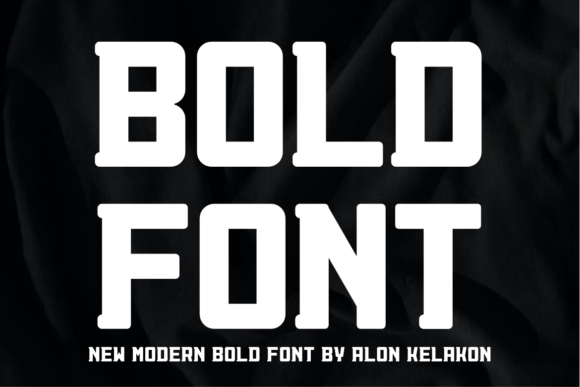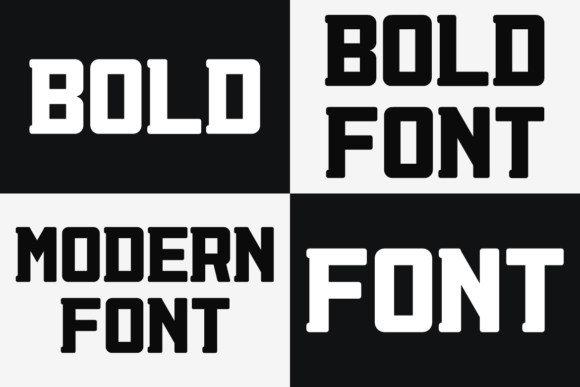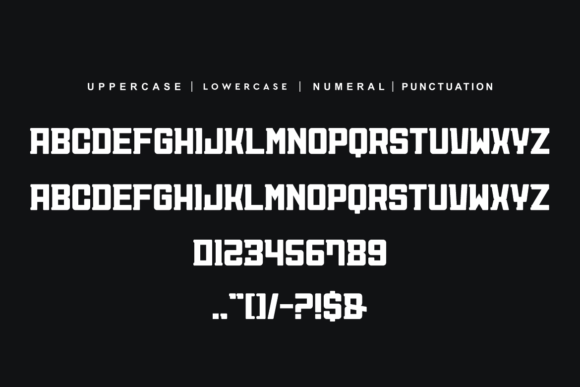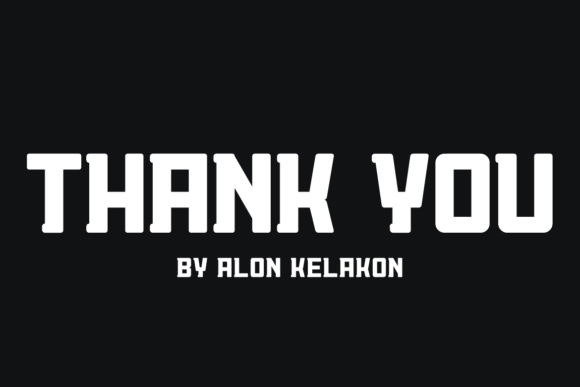
Unleash Your Inner Graphic Designer: The Power of Black Gonster Font
Remember the moment when you’re brainstorming a new project, and suddenly, a spark of creativity hits you? The ideas start flowing, and you envision the perfect design. That’s exactly the moment when a powerful font like Black Gonster Font can make all the difference. Its bold, masculine look can instantly elevate your design and leave a lasting impression on your audience.
Whether you’re creating posters, banners, or headlines, Black Gonster Font is the perfect addition to make your design stand out. Its versatility and unique style make it an invaluable tool for designers looking to add a touch of sophistication and edge to their work. With Black Gonster Font, you’ll be able to convey your message with confidence and style.
Key Features of Black Gonster Font
- Font Family: Black Gonster Font is a sans-serif font family, offering a unique blend of modern and industrial design elements.
- Unique Characteristics: Features a distinctive, bold, and edgy design aesthetic, with geometric shapes and sharp lines.
Designer Review: Black Gonster Font
I recently had the chance to work with the Black Gonster font, and I must say it’s an interesting choice for designers. Here are my thoughts:
- ✨ Unique and edgy design: Black Gonster font definitely stands out from the crowd with its bold, gothic-inspired aesthetic.
- ✨ High legibility: Despite its unique design, the font is surprisingly easy to read, even at smaller sizes.
- ✨ Customization options: Black Gonster font offers a range of styles and weights, allowing designers to mix and match to suit their project needs.
- ⚠️ Limited typographic nuance: While Black Gonster font is bold and eye-catching, it can feel a bit one-dimensional in terms of its letterforms and spacing.
- ⚠️ May not be suitable for all projects: The font’s edgy design may not be the best fit for more conservative or traditional projects.
Overall, I’d say Black Gonster font is a great choice for designers looking to add a bold, gothic touch to their projects. While it may have some limitations, its unique design and high legibility make it a great option for the right projects.
Tips for Getting the Most Out of Black Gonster Font
Use Black Gonster font to create bold and edgy designs. Pair it with bold colors and striking graphics to make a statement. Experiment with different font sizes and alignments to add visual interest.
Black Gonster font is perfect for:
– Grunge and alternative designs
– Heavy metal and rock music branding
– Edgy and avant-garde fashion designs